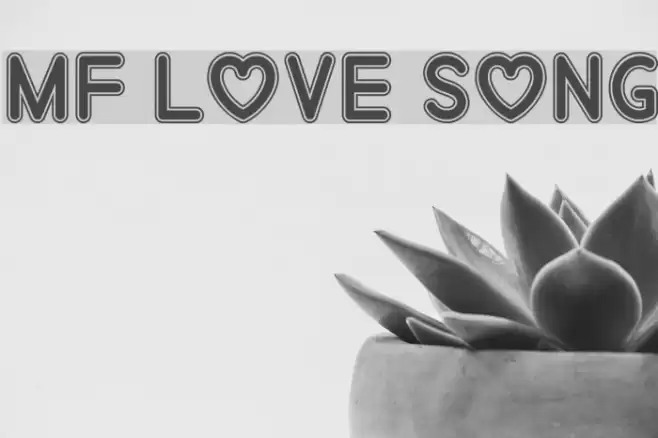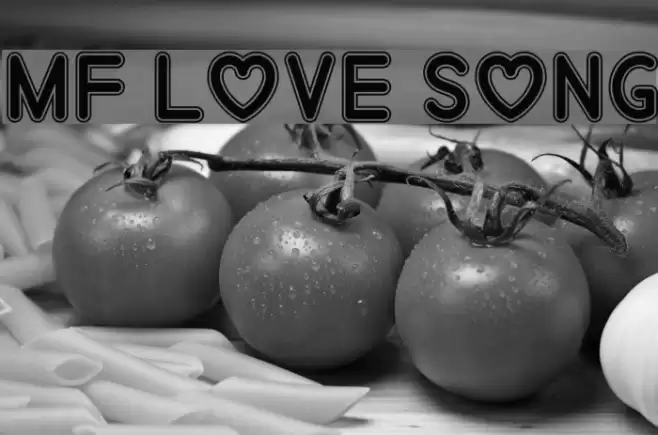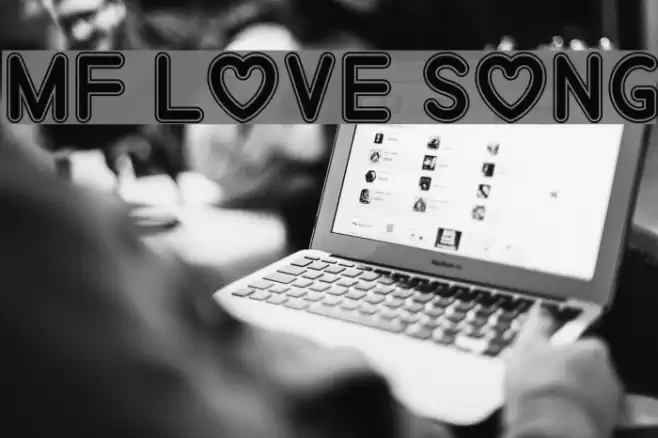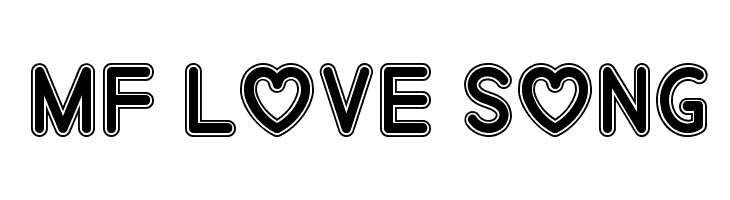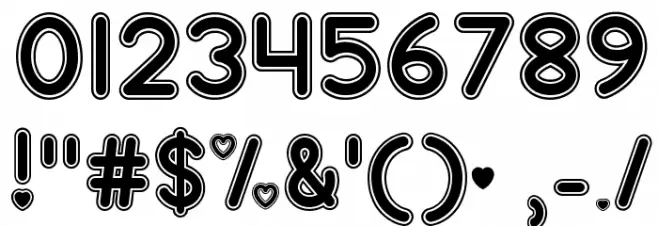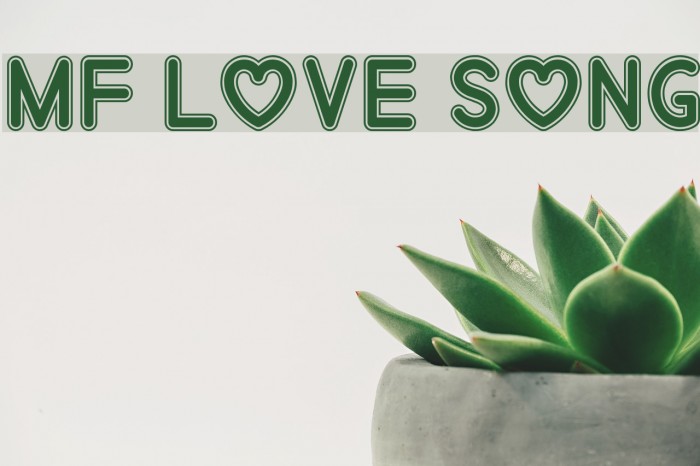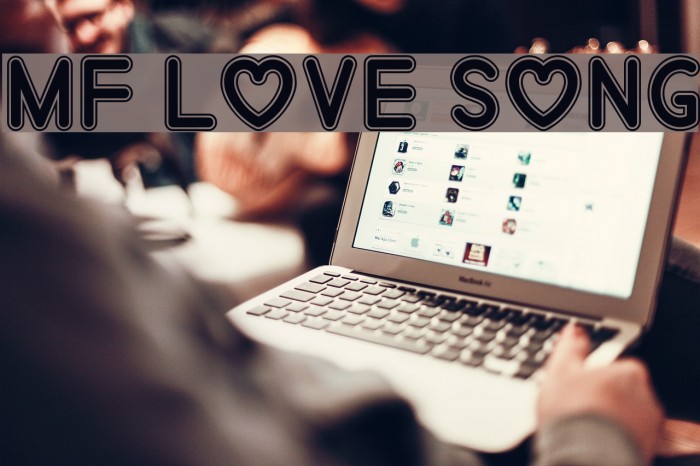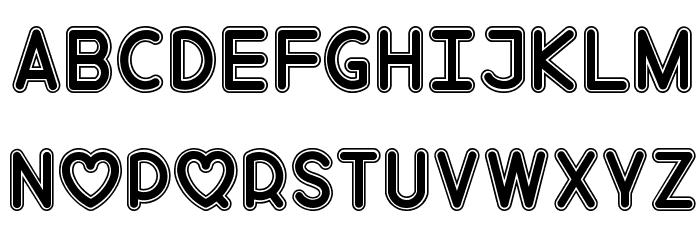
Mf Love Song Font
Mf Love Song Description
This playful and decorative font features bold, outlined characters with a unique twist. The letters are evenly spaced and have a consistent stroke width, giving them a clean and modern appearance. Notably, the letter 'O' is replaced with a heart shape, adding a whimsical and romantic touch. The numbers and special characters maintain the same bold outline, ensuring uniformity across all glyphs. This font is perfect for projects that require a fun and engaging style, such as greeting cards, event invitations, or playful branding materials.
A bold, outlined decorative font with heart-shaped 'O's for a playful touch from Uncategorized fonts.
- Proposed Projects: Ideal for greeting cards, event invitations, playful branding, and romantic-themed designs.
- Overall Style: Playful, Romantic, Modern
- Use Case: Headlines, Logos, Decorative Text